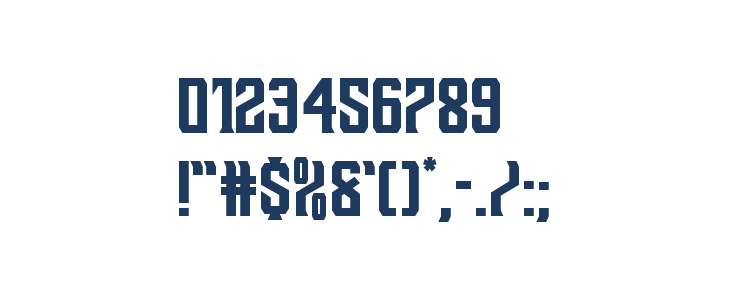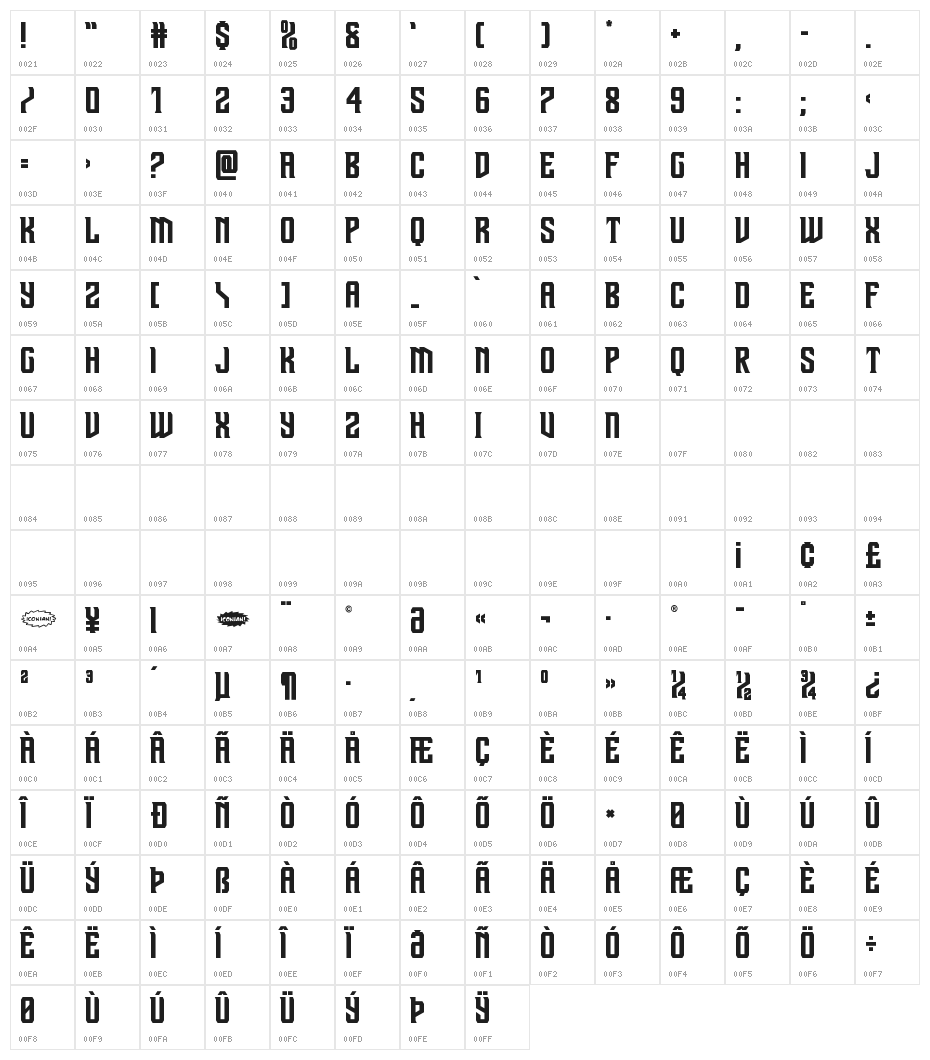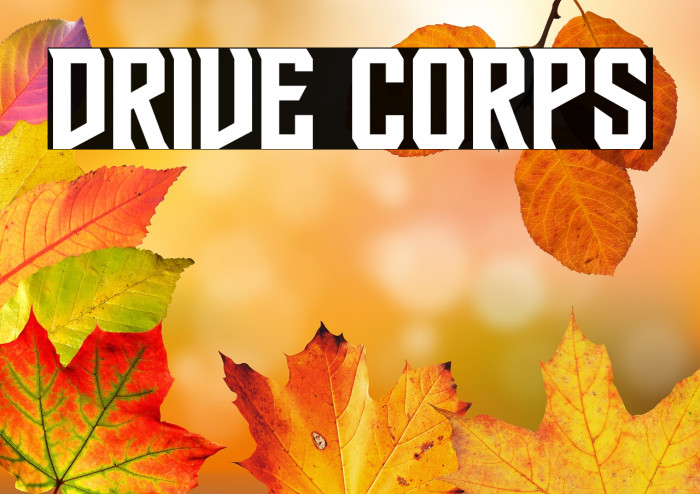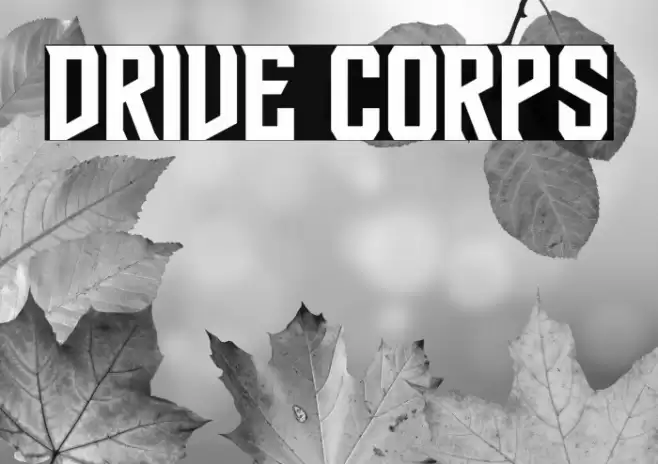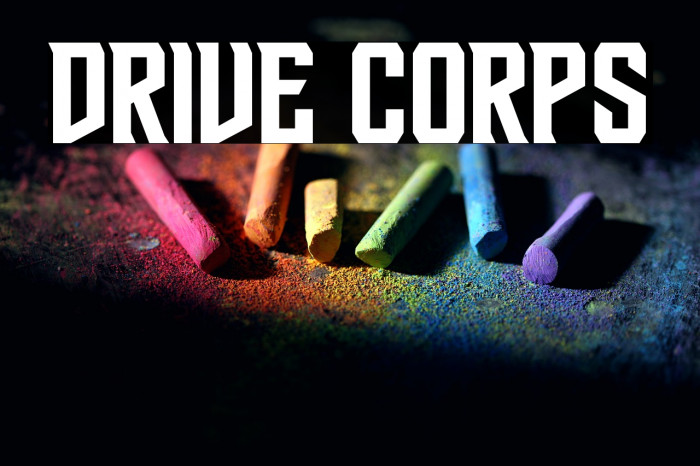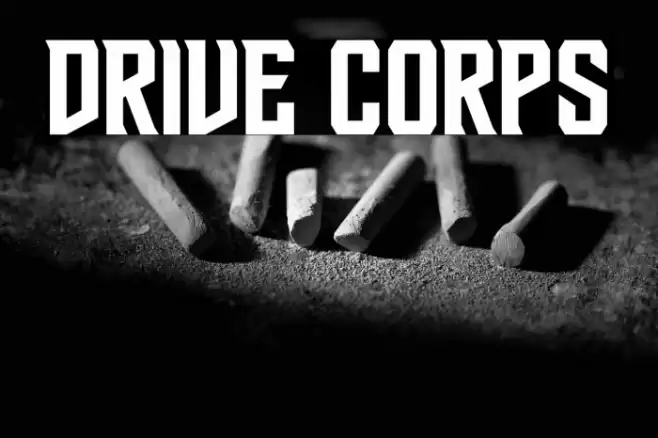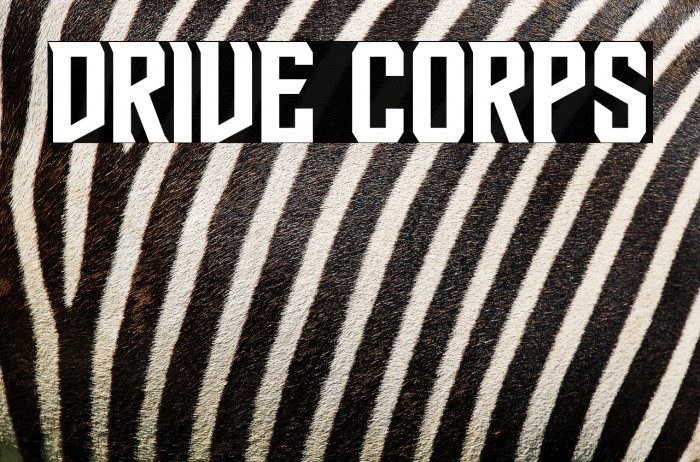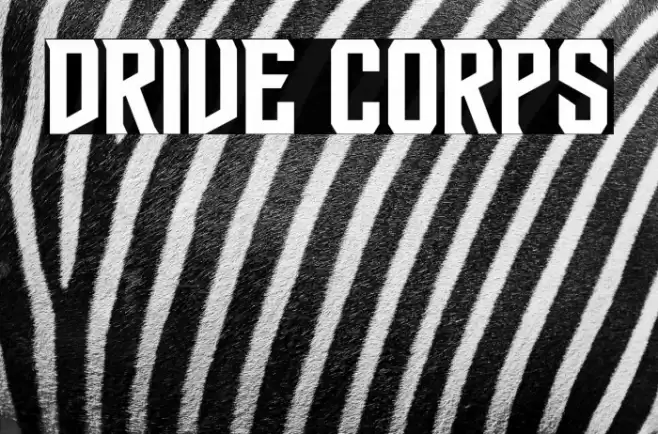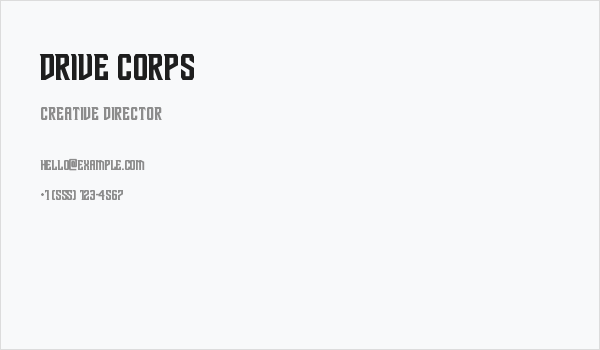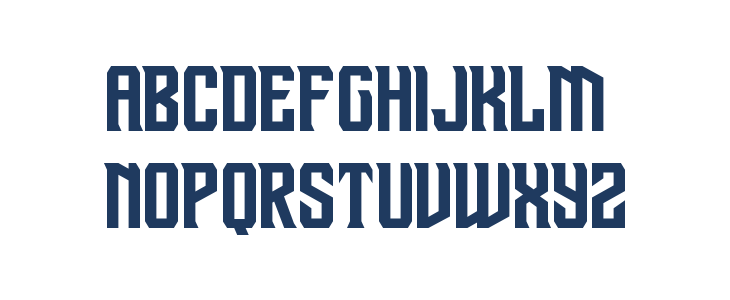
Drive Corps Font
Drive Corps Description
This font features a bold and geometric design with strong, angular lines and a modern aesthetic. The characters are uniformly structured, providing a sense of stability and strength. The uppercase letters are particularly striking, with sharp edges and a consistent height that makes them ideal for impactful headlines. The lowercase letters maintain the same boldness, ensuring readability while preserving the font's distinctive style. The numerals and special characters are crafted with the same attention to detail, making them suitable for a variety of uses. Overall, this font exudes a sense of power and modernity, making it a great choice for projects that require a bold statement.
| Proposed Projects | Ideal for branding, posters, sports team logos, and any project requiring a bold, impactful typeface. |